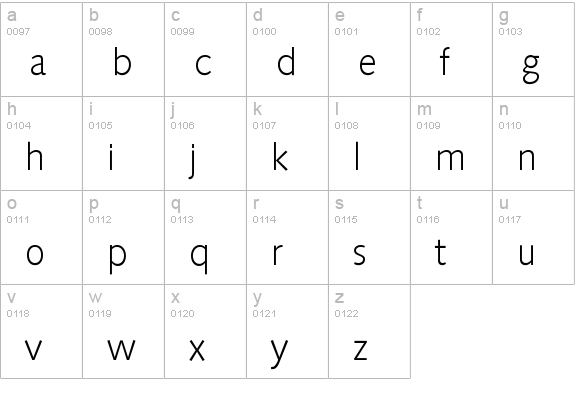
Saxony-Light is a refined, elegant variant in the Saxony typeface family \xE2\x80\x94 well suited to elegant body text, refined sub-headings, and luxury branding.
Introducing Saxony-Light, a captivating and versatile font that effortlessly combines elegance and modernity. This font's sleek and sophisticated design makes it perfect for a wide range of projects, from branding and advertising to editorial design and beyond. Saxony-Light boasts a unique balance of clean lines and subtle curves, resulting in a harmonious and visually pleasing typography experience. The delicate and refined letterforms exude a sense of grace and poise, while maintaining readability and legibility in any context. With its generous x-height and well-proportioned characters, Saxony-Light offers exceptional clarity and visual impact. Whether used for headings, subheadings, or body text, this font ensures optimal readability across different sizes and platforms. One of the most remarkable features of Saxony-Light is its versatility. It effortlessly adapts to various design styles, whether you're aiming for a minimalist and contemporary look or a more classic and timeless aesthetic. It seamlessly integrates into any project, adding a touch of sophistication and professionalism. And the best part? Saxony-Light is available for free download exclusively at FontsMarket.com. Its accessibility allows designers, creatives, and enthusiasts alike to explore its endless possibilities and elevate their projects to new heights without any financial constraints. So, why wait? Enhance your designs with the charm and elegance of Saxony-Light, and let your creativity shine. Experience the freedom of this remarkable font, and unlock a world of design possibilities at your fingertips. Download Saxony-Light now, exclusively at FontsMarket.com, and embark on a typographic journey that will leave a lasting impression.